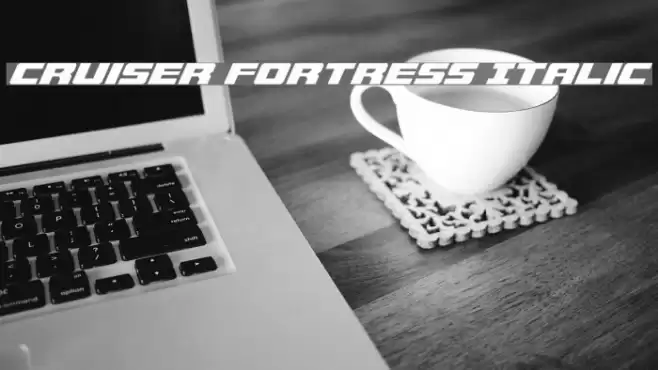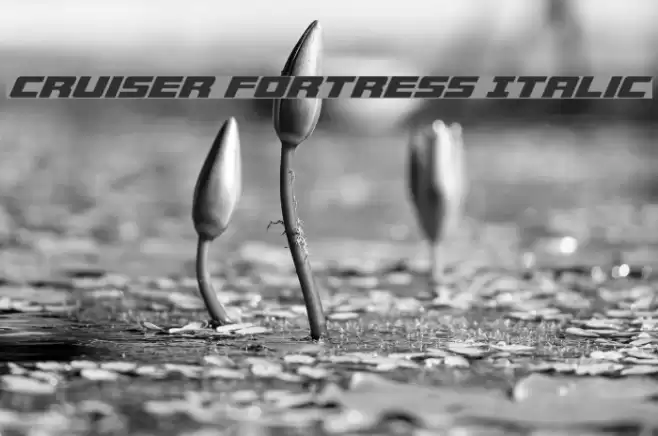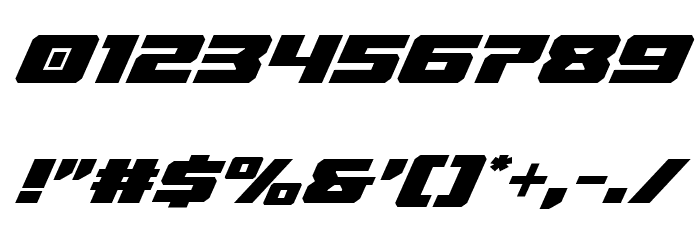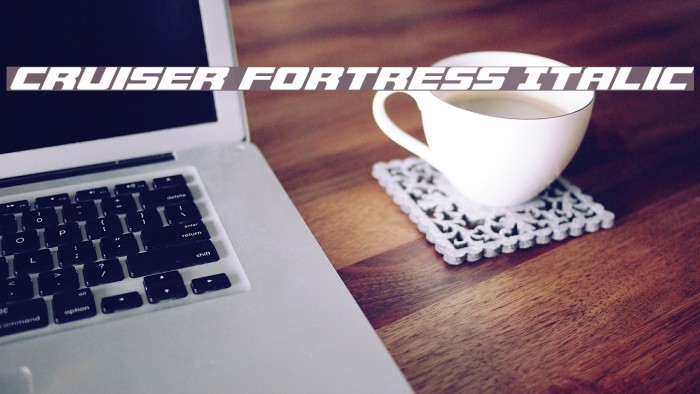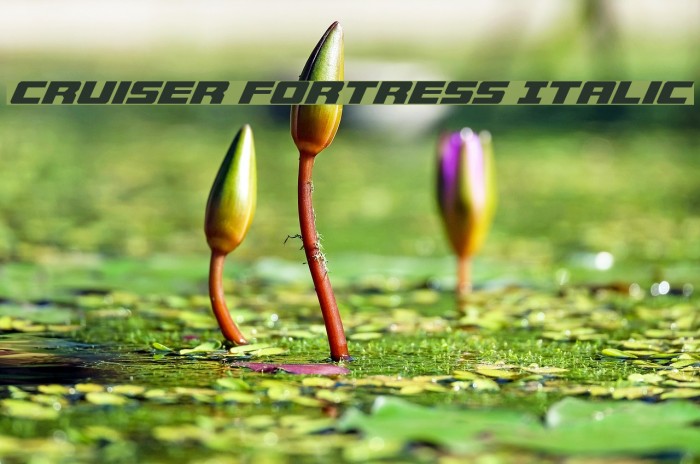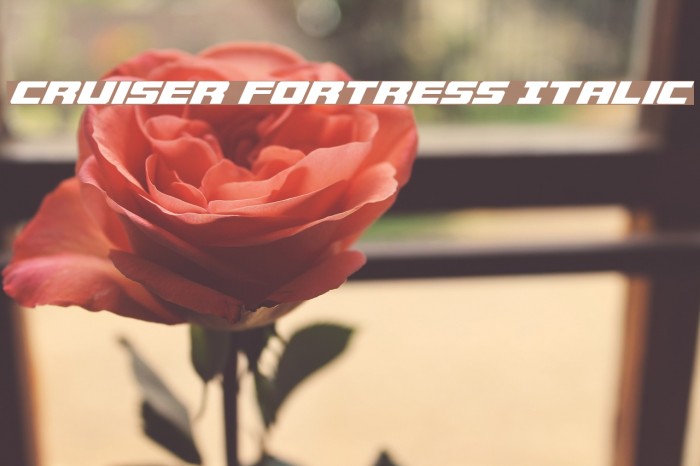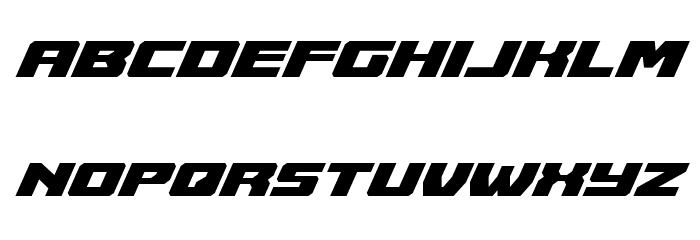
Cruiser Fortress Italic Font
Cruiser Fortress Italic Description
This font features a bold and dynamic style with a strong italic slant, giving it a sense of motion and energy. The characters are wide and robust, with angular cuts and sharp edges that convey a sense of strength and modernity. The uppercase letters are particularly striking, with a uniform height and consistent stroke weight that ensures readability. The numerals and special characters maintain the same bold and angular design, making them suitable for impactful displays. The overall design is cohesive, with a futuristic and industrial aesthetic that stands out.
A bold, italic font with angular, dynamic characters and a modern, industrial feel from Sci-fi fonts.
- Proposed Projects: Ideal for projects requiring a strong, modern look such as sports branding, automotive designs, video game titles, and tech-related advertisements.
- Width: Expanded